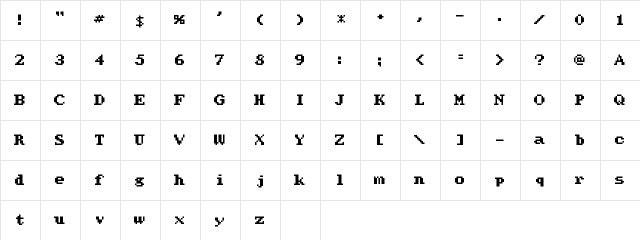
WerdnasReturn Medium
Design Context for WerdnasReturn Typeface
WerdnasReturn is a composed and adaptable typeface that performs quietly and consistently across a wide range of design contexts.